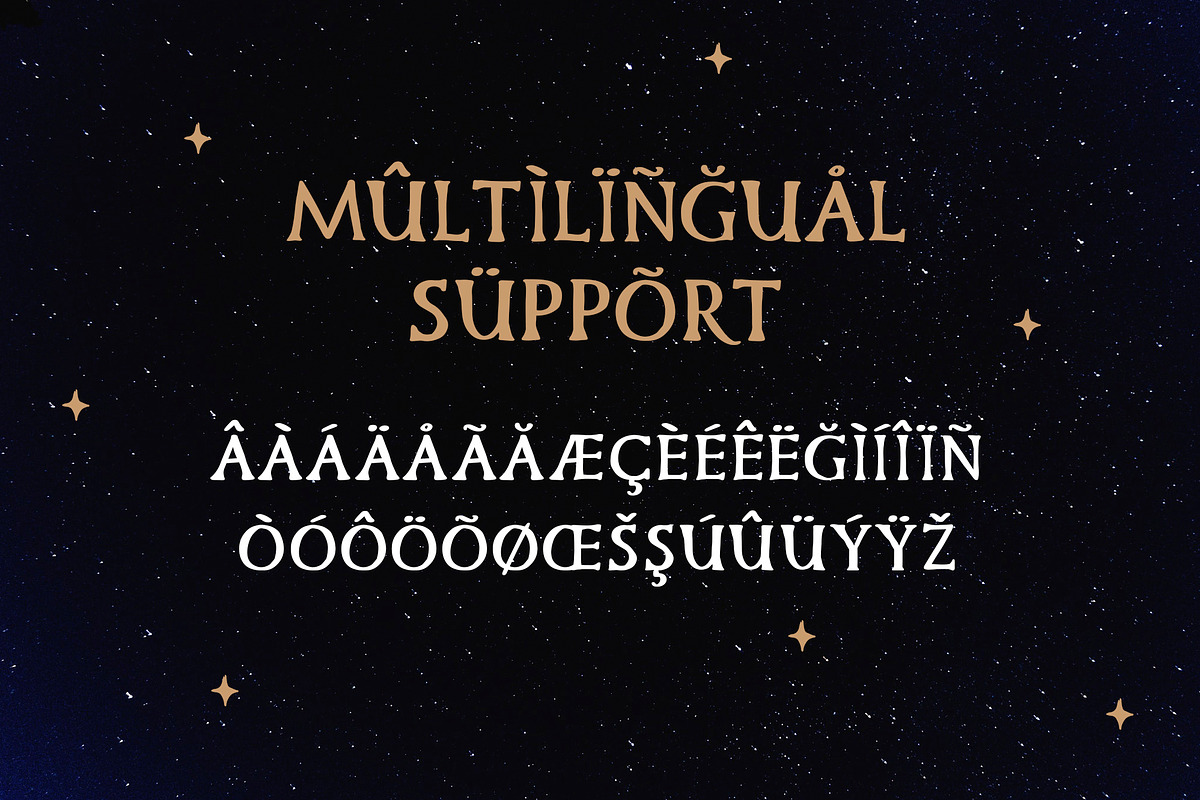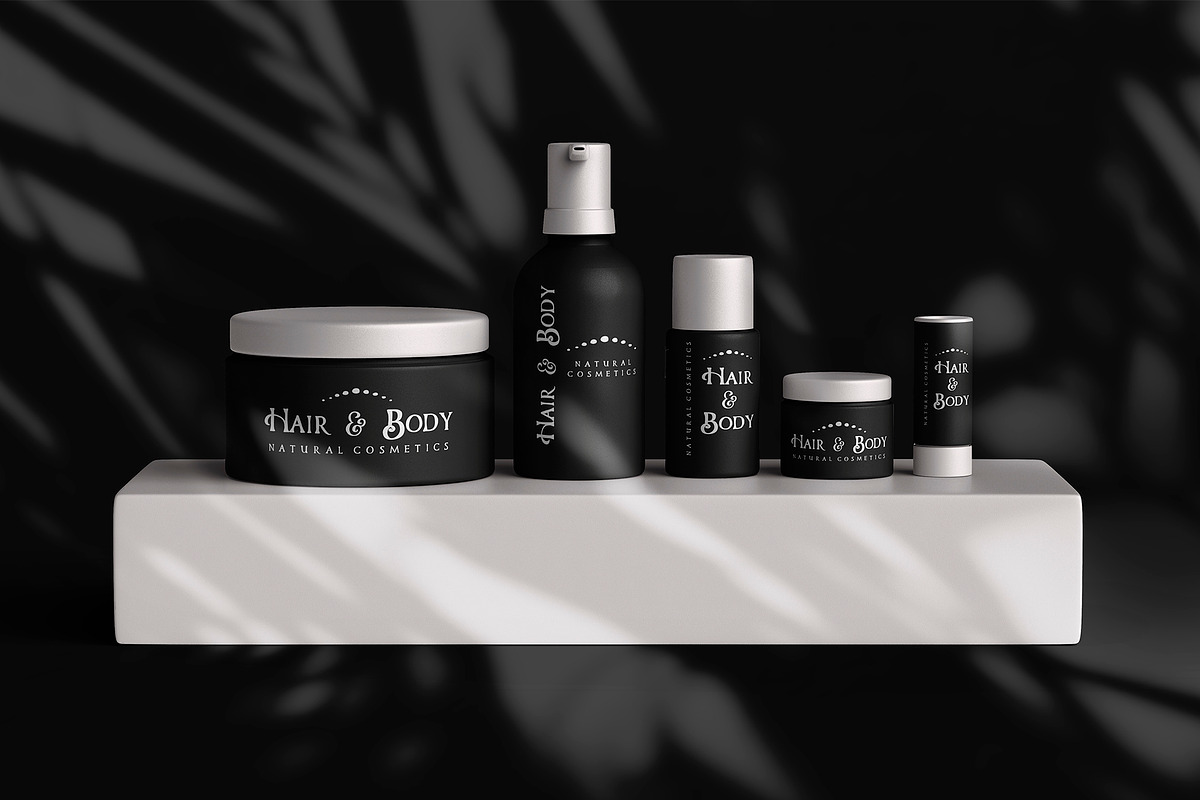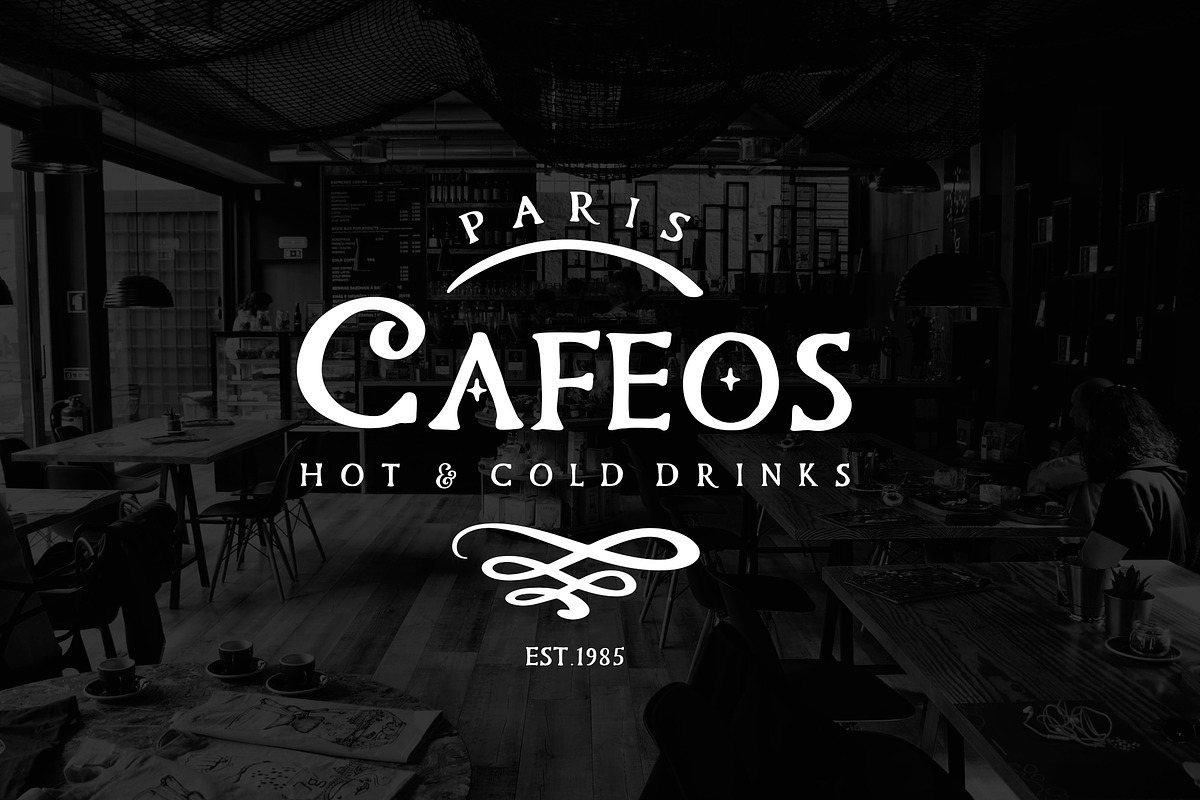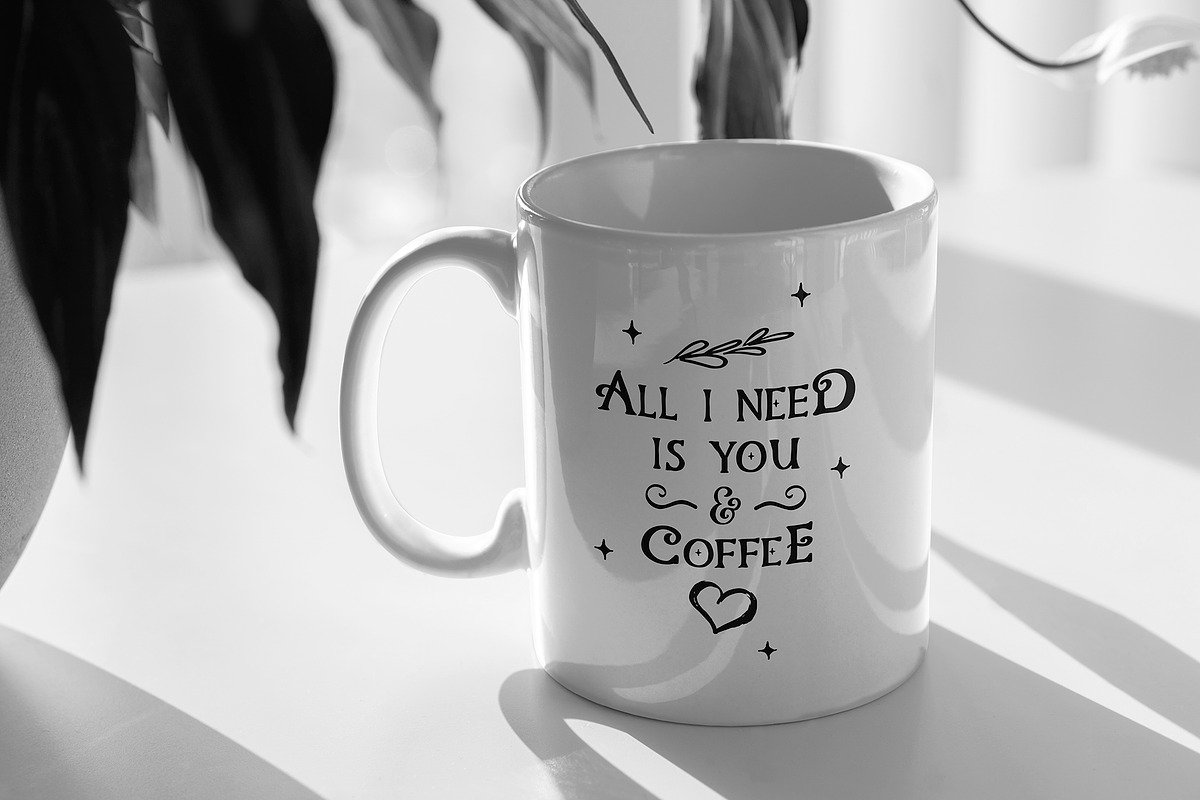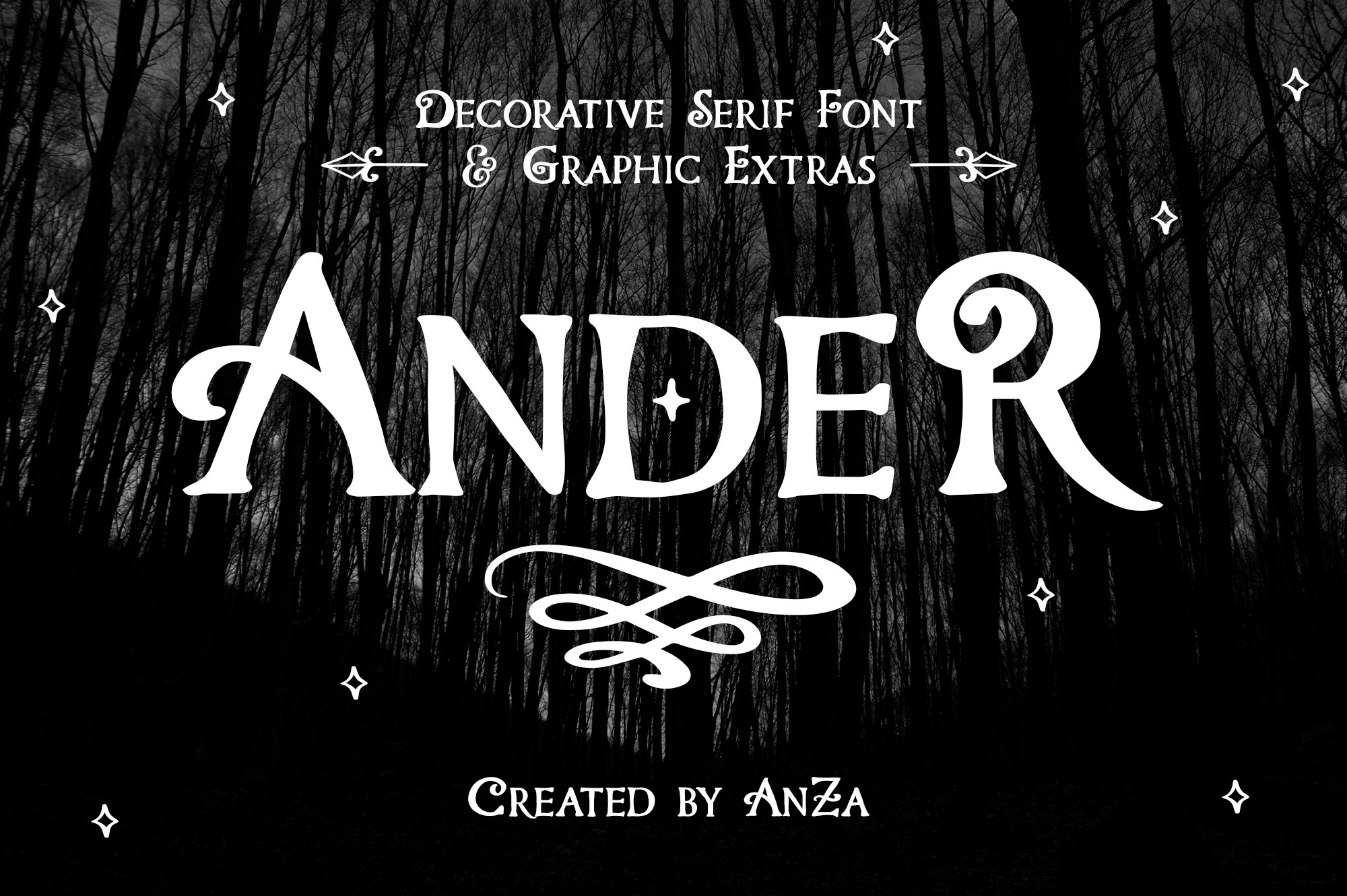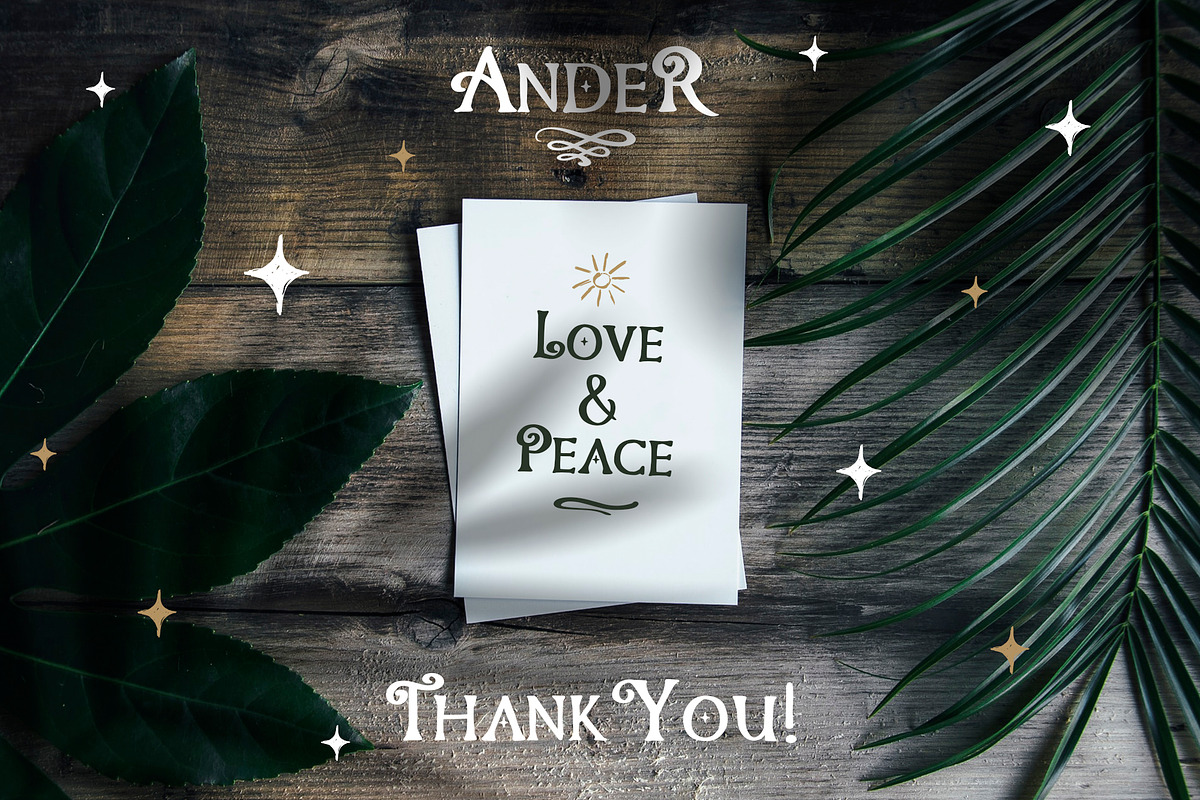
Hand-Drawn Serif Font Family
Ander - carefully hand-drawn serif font family consisting of clean and brush rough version with graphic extras.
Ander will be perfect for logo, packaging, greeting cards, presentations, headlines, lettering, posters, branding, quotes, titles, magazines headings, web layouts, art quote, typography, advertising, invitations, packaging design, books, book title, and nearly any creative design.
Ander hosts 3 different styles:
- Ander Regular is clean version with smoothed edges.
- Ander Brush has ultra-textured rough look.
- Ander Symbols - contains over 50 swashes and symbols, perfect for underlining your text and adding some extra graphics. Just install this font separately and type any A - Z character when using this font to generate a swash.
Ander has uppercases, numbers & basic punctuation, multilingual support (French, German, Italian, Norwegian, Portuguese, Spanish, Swedish, Swiss German) and additional graphic symbols. Fonts are provided in OTF, TTF and WOFF formats.